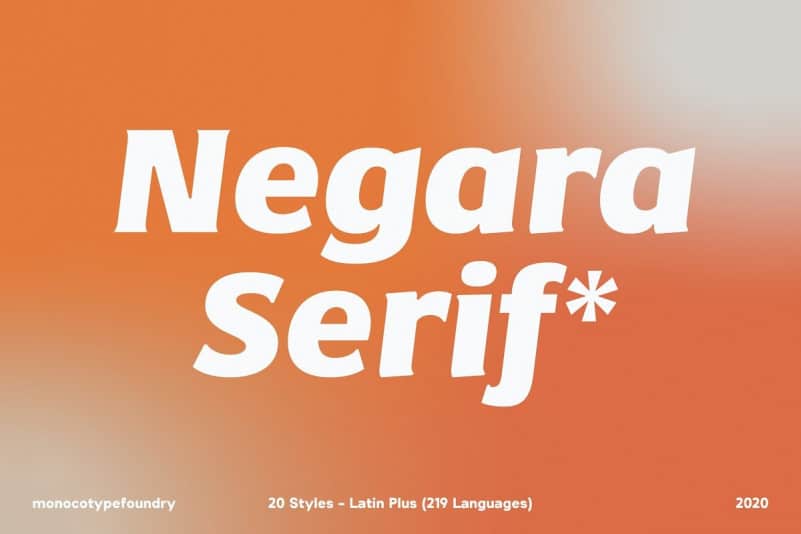
Negara Serif Font
Negara Serif is typeface that have classic and elegant vibe, designed for any headline and short paragraph use.
Featured with Latin Plus that have include 219 Language support so it will usable in wide range country, Beside latin there is Cyrillic Support in Negara Serif.